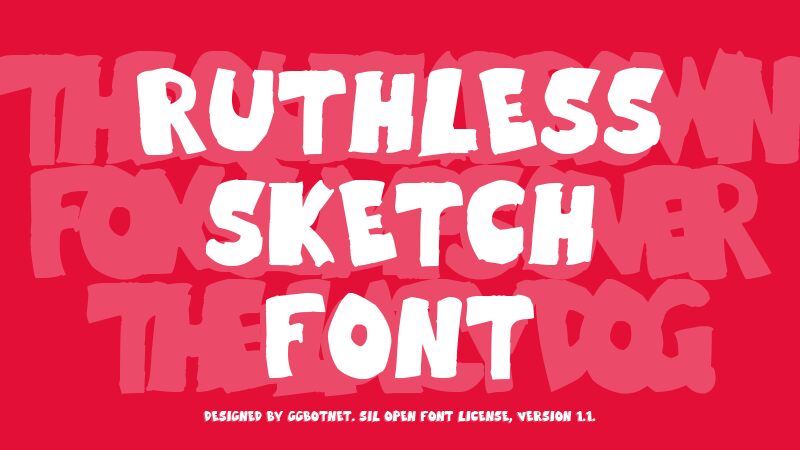
Ruthless Sketch Italic display cartoon font by GGBotNet has a graffiti-inspired, strong visual impact with its different yet casual aesthetic. The bold and modern typeface gives off an urban feel, creating a unique vibe that holds the attention of viewers. This free font is meant to instantly become the focal element of your design, a feature some artworks lack due to weak font choices.
Sketch and architecture drawings mainly use this font type followed by game design, UI/UX dashboards and any self-created projects reffing personal hobbies. Other uses are product packaging, typographic shirts, clothing tags and labels or product commercial displays. в